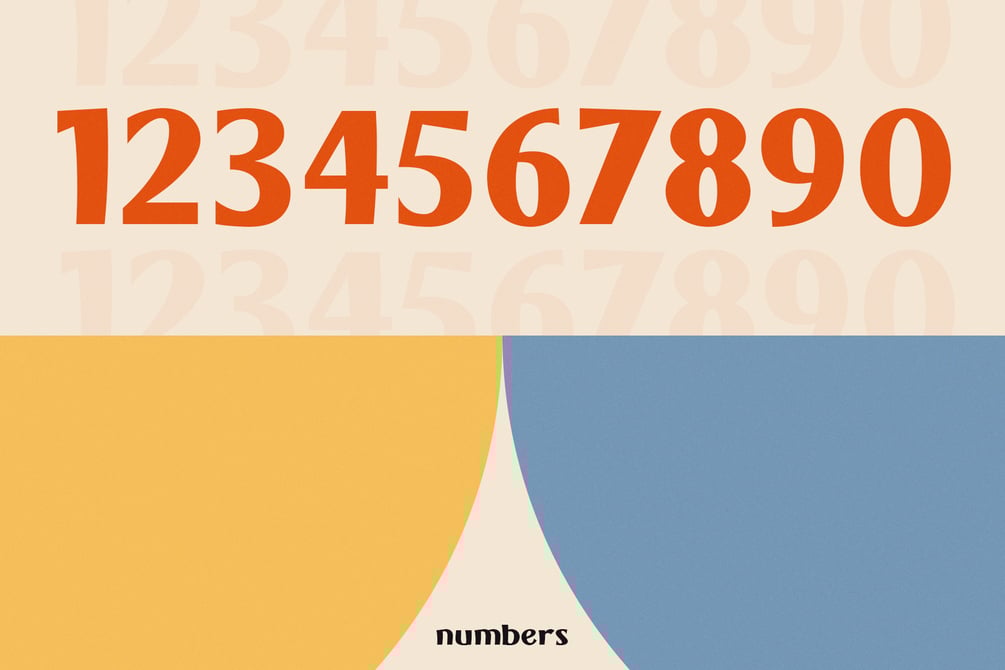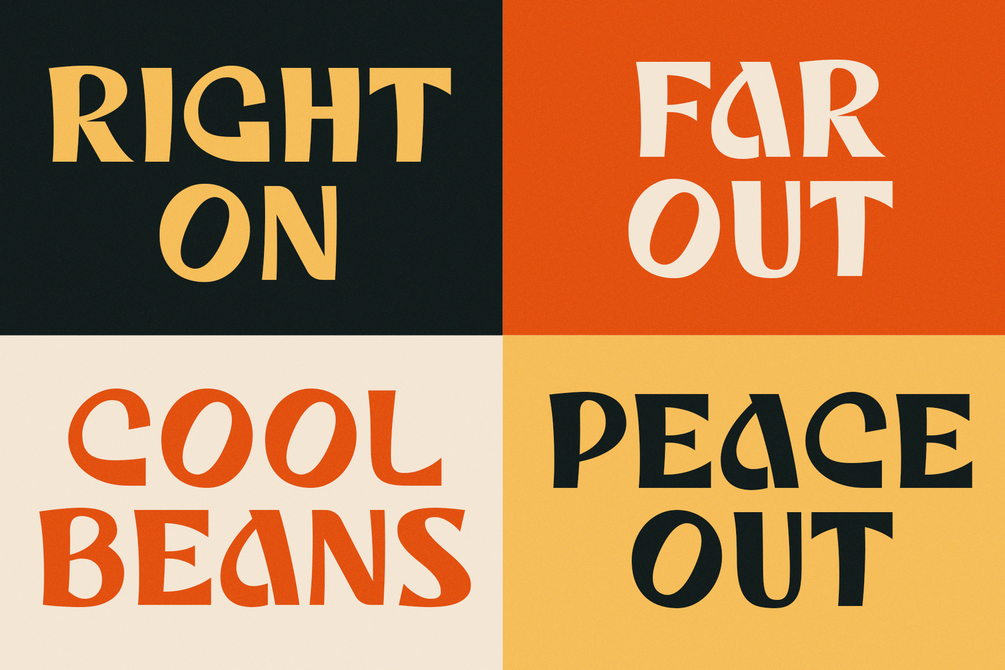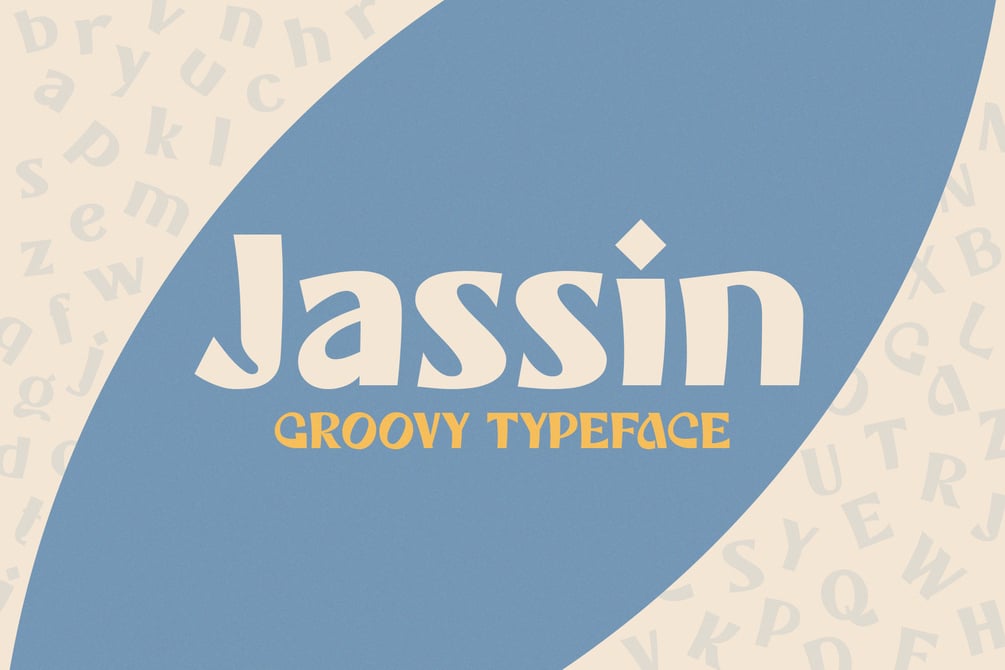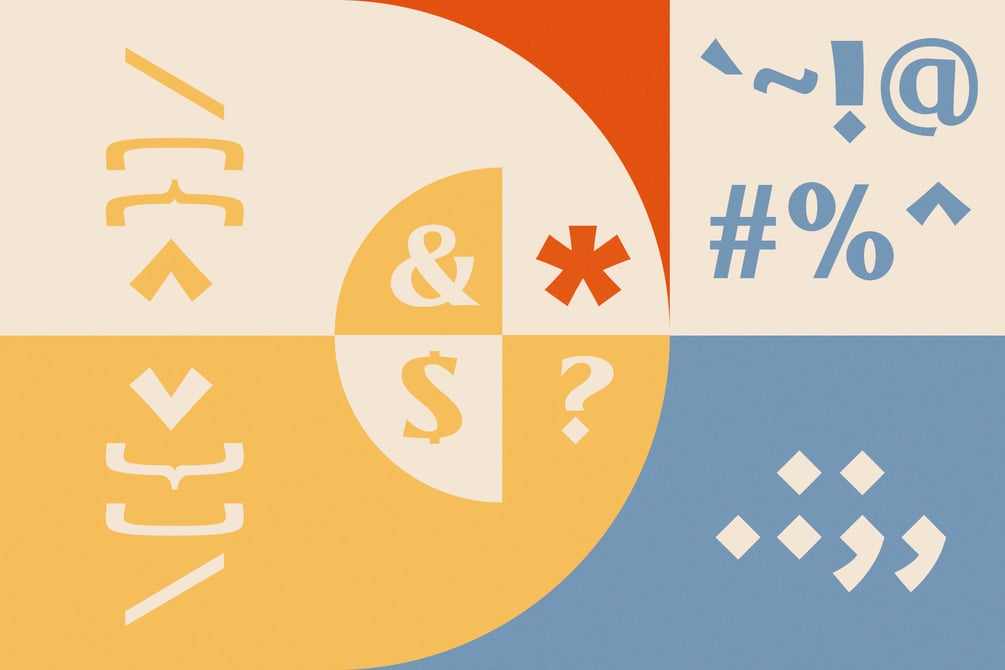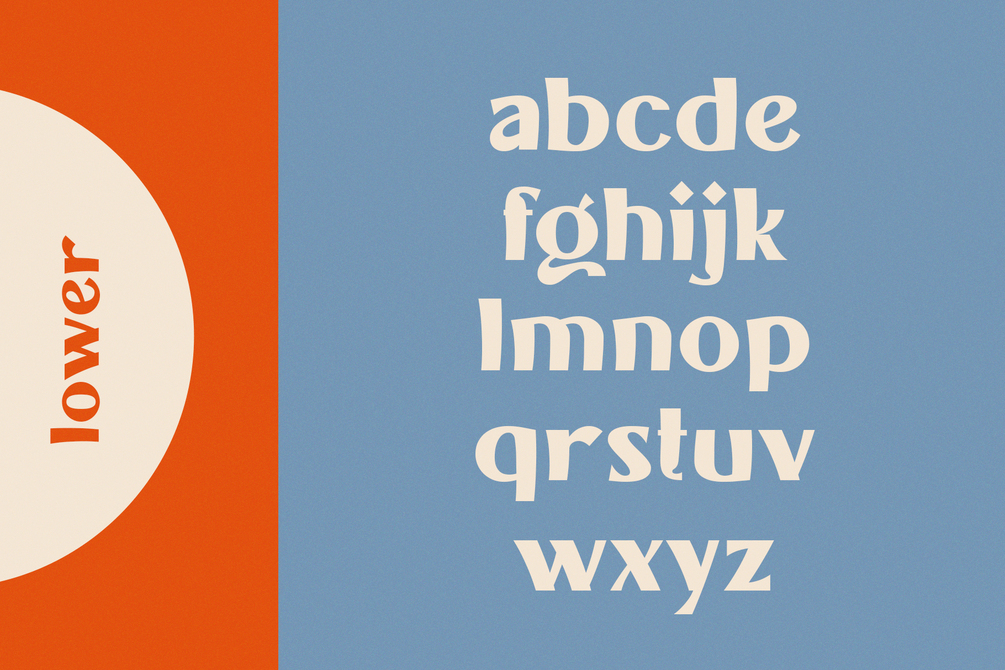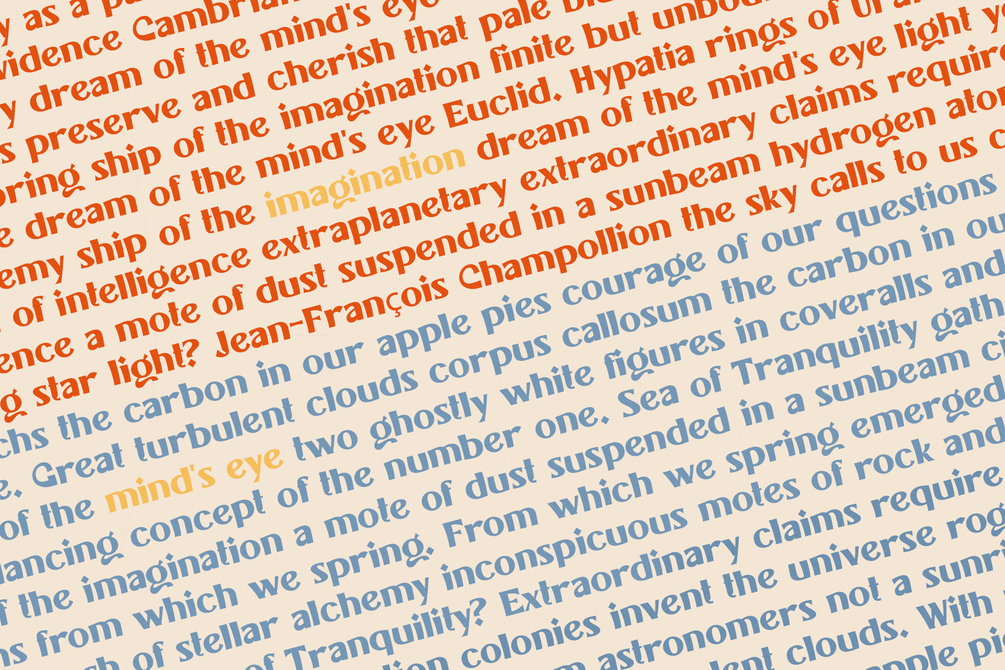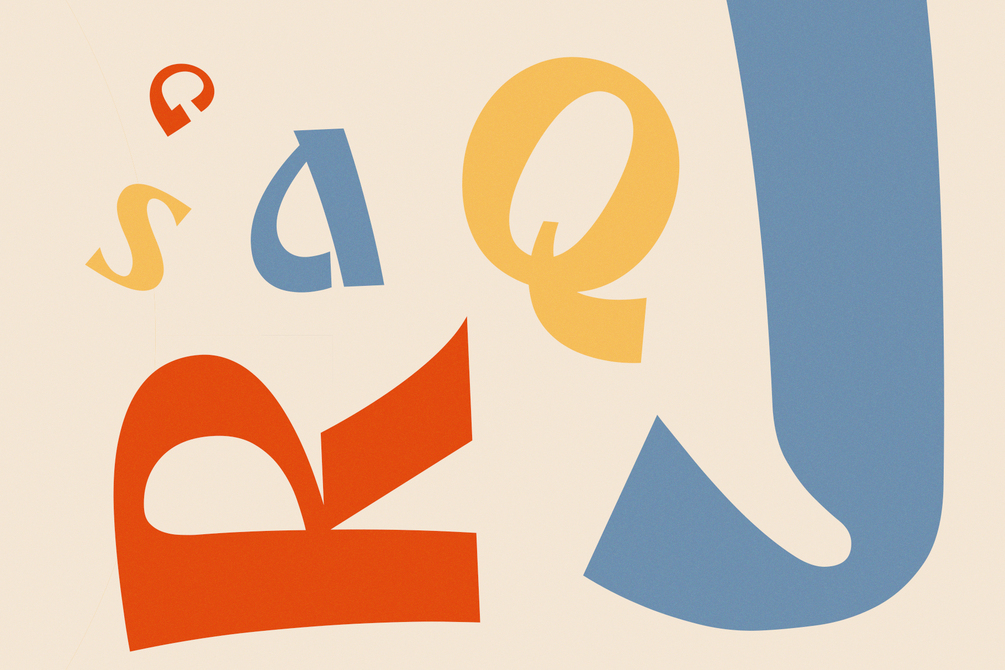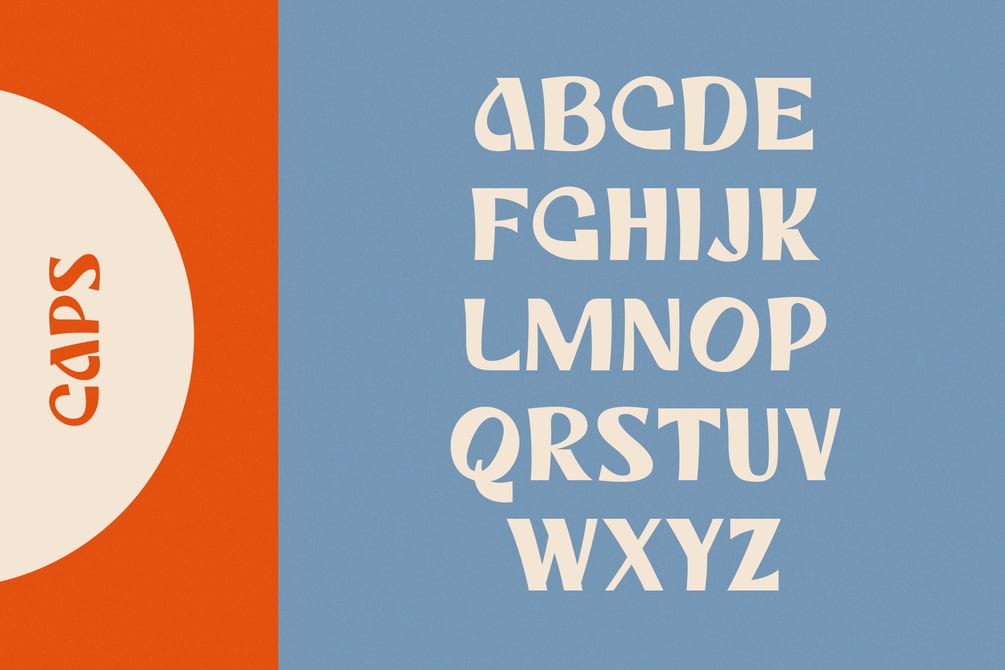
Jassin - Groovy Typeface
Jassin is a fun and groovy typeface with a bold personality. Perfect for branding, headlines, social media, advertising, packaging, posters, t-shirts, editorials and much more. Its vintage feel evokes the carefree and whimsical vibe of the psychedelic era, allowing you to craft impressive looking designs